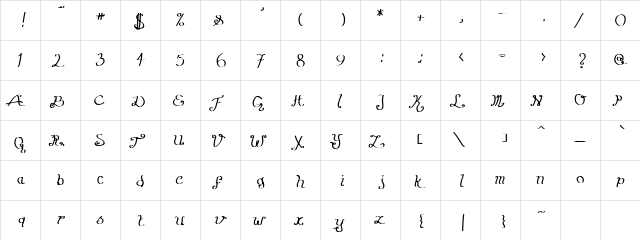
Fastgraph Freehand
| Style | Freehand |
Design Context for Fastgraph Typeface
Fastgraph brings a calligraphic fluidity to the page — its connecting strokes and expressive curves give it an unmistakably human quality.
Font Pairing: Combine Fastgraph with a simple geometric sans for maximum contrast — the tension between flowing curves and clean structure is a classic typographic pairing.
Pro Tip: Use Fastgraph for short runs of text — names, titles, or taglines. Extended body copy in script faces tires the eye quickly.